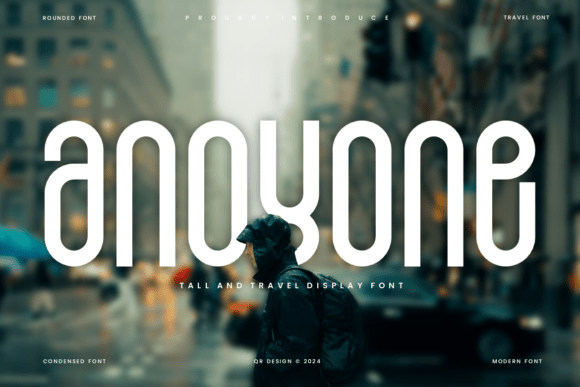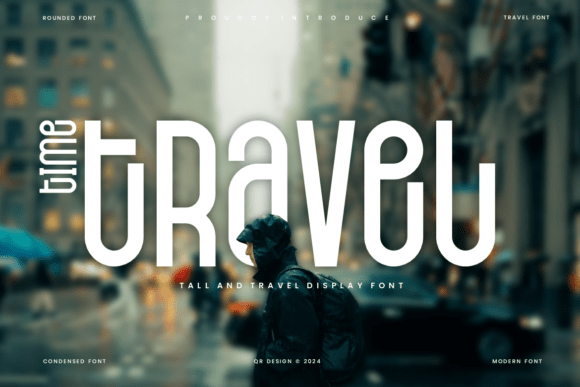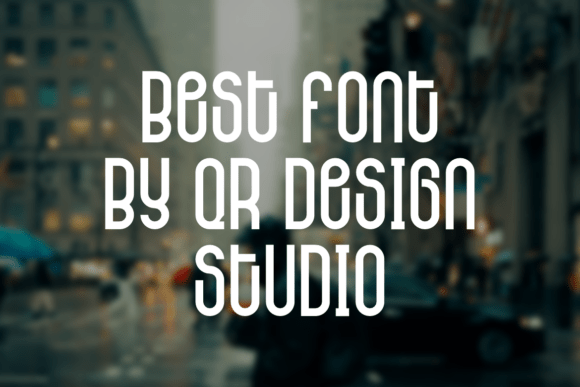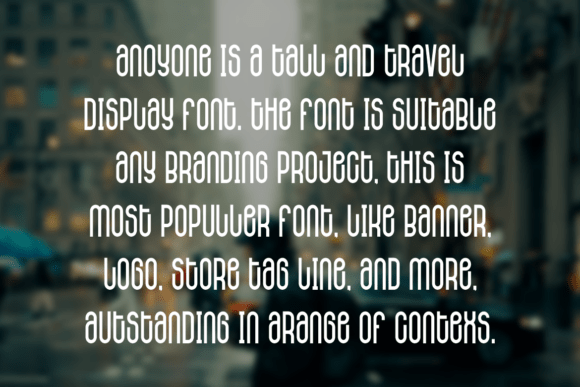
Anoyone Font: Bold Display Typography for Modern Logo Design & Branding
About the Anoyone Font
Experience the unique personality of Anoyone Font, a font designed for impact. Anoyone – Tall & Travel Display Font is a bold and authentic display font.
The font is suitable for any branding project, like logos, sports, and many more.
Outstanding in a wide range of contexts.
Anoyone excels as a headline font for posters, branding materials (especially logos and short taglines), and packaging where its bold, authentic character makes a strong visual statement. It’s ideal for projects conveying energy and confidence. However, its condensed letterforms and high x-height make it less suitable for body text or UI elements requiring high readability over longer spans.
Pairing Anoyone effectively depends on the desired balance. For a modern, high-impact aesthetic, consider pairing it with a clean geometric sans-serif like Futura or a minimalist serif like Garamond. To add a touch of playful contrast, a rounded sans-serif such as Gill Sans could work well.
Anoyone’s overall personality is bold and assertive, yet retains a classic, slightly rebellious feel. This makes it perfect for brands targeting a younger, active demographic or those wanting to project a sense of strength and individuality.